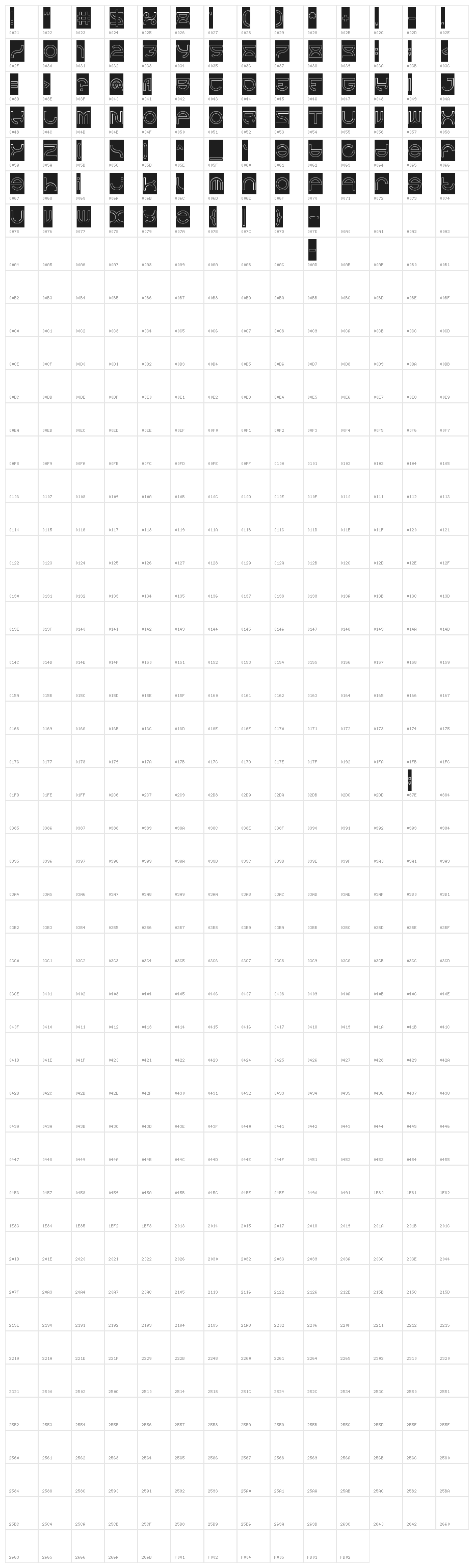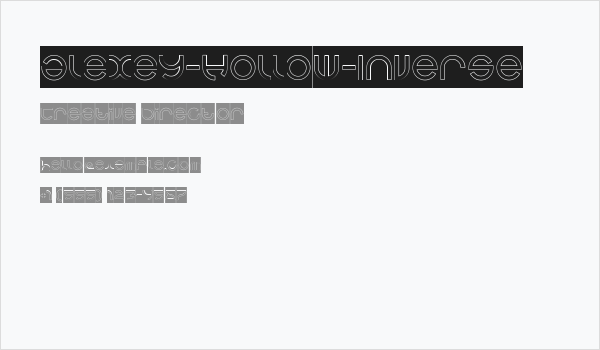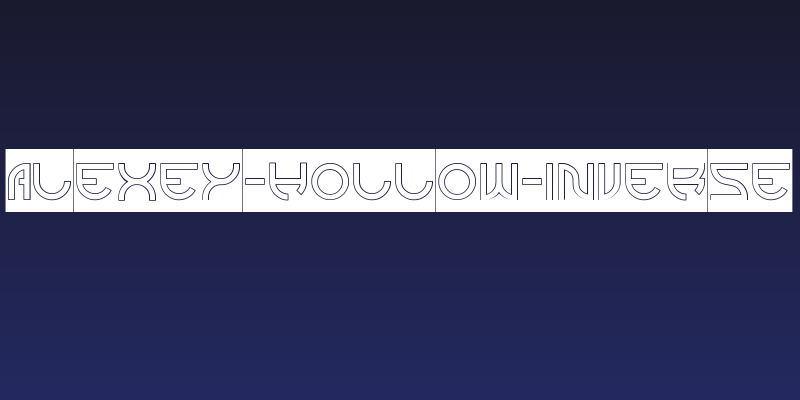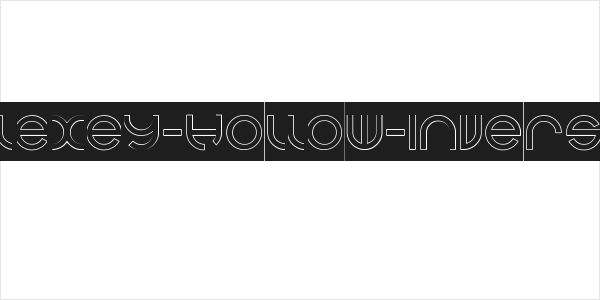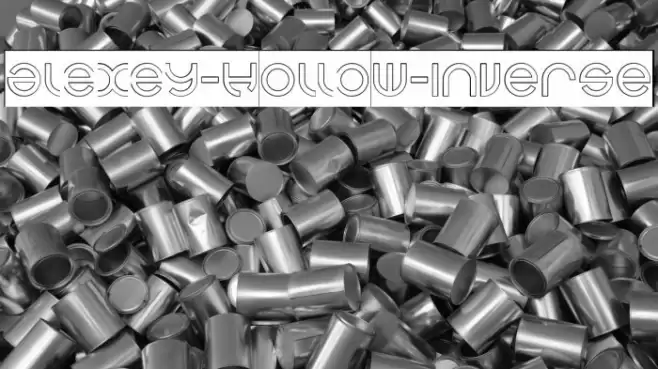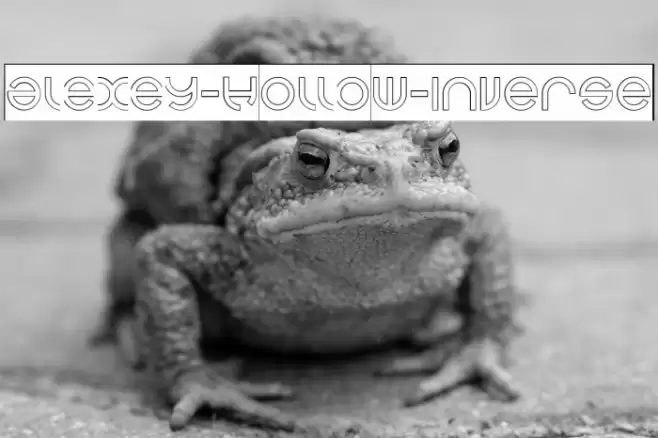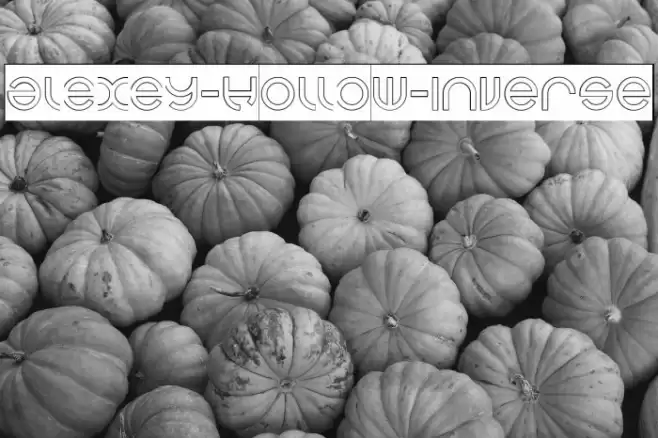
alexey-Hollow-Inverse Font
This font features a unique hollow design with an inverse style, creating a striking visual effect. The characters are outlined with a consistent stroke width, giving them a modern and futuristic appearance. The uppercase and lowercase letters maintain a geometric form, with rounded edges and smooth curves that enhance readability. The numerals and special characters follow the same design principles, ensuring uniformity across the typeface. This font's distinct style makes it ideal for creative and bold design projects.
| Proposed Projects | Ideal for branding, posters, digital art, and futuristic design projects. |